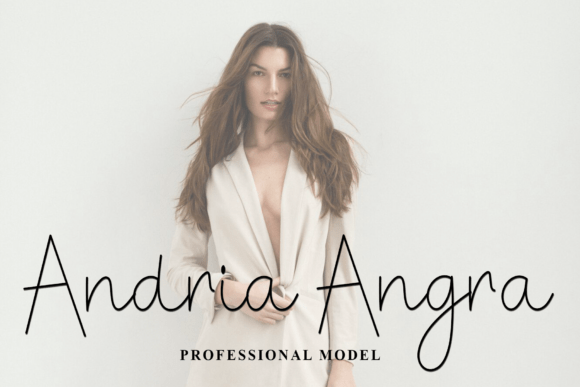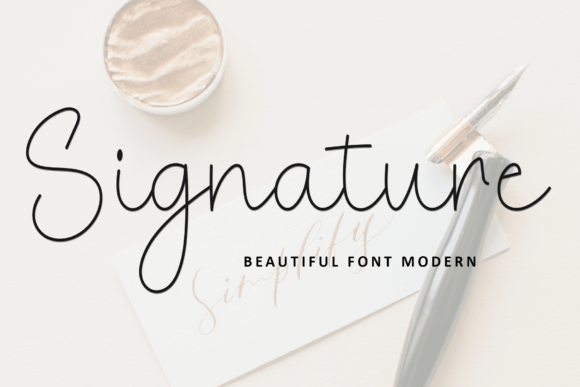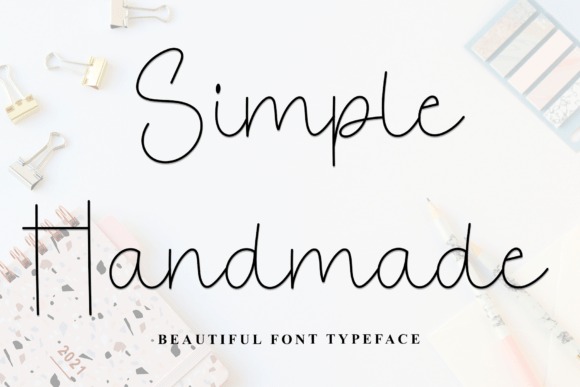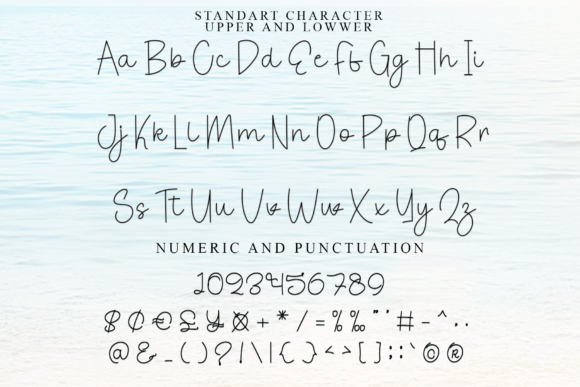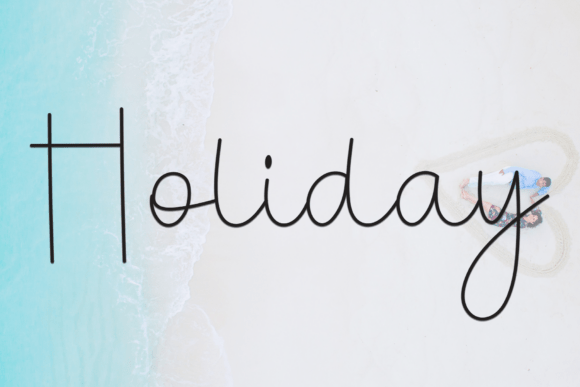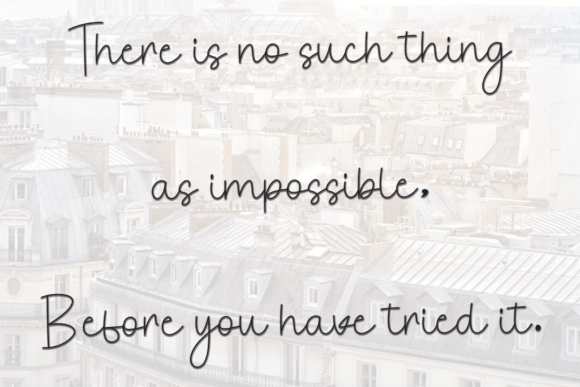
Biscuit Handmade Font: Elevate Your Designs with a Touch of Whimsy
In the world of typography, few fonts manage to capture the essence of handmade charm as effectively as the Biscuit Handmade Font. This beautiful, eye-catching font is designed with a soft, unique touch that immediately sets it apart from more conventional typefaces. Its distinctive strokes give it a special character, making it not only meaningful but also incredibly versatile for future use in a wide array of design projects.
The Unique Appeal of Biscuit Handmade Font
The Biscuit Handmade Font boasts a range of features that make it an invaluable addition to any designer’s toolkit. One of its most notable attributes is its ability to bring a personal, handcrafted feel to any project. Whether you’re working on crafts, creative writing, or digital design, this font adds a layer of warmth and personality that can be difficult to achieve with more standard typefaces.
Versatility Across Projects
One of the key strengths of the Biscuit Handmade Font is its versatility. With a variety of characters at your disposal, you can use this font for a multitude of design projects. From crafting beautiful headings and titles to adding a personal touch to body text, Biscuit Handmade adapts seamlessly to different contexts. This adaptability makes it an excellent choice for:
- Digital and print design projects
- Crafts, including handmade cards and invitations
- Creative works such as poetry, short stories, and novels
- Branding and packaging that requires a personal touch
Enhancing Your Designs
The Biscuit Handmade Font is more than just a typeface – it’s a design element that can elevate your projects and make them more appealing to a broad audience. Its natural, handmade style resonates with the growing demand for personalized and unique design solutions. By incorporating Biscuit Handmade into your work, you can:
- Create visually striking headings and titles that capture attention
- Add an emotional connection to your designs through its warm and inviting feel
- Stand out in a crowded market with a distinctive aesthetic
The Future of Design with Biscuit Handmade Font
As we move forward in the digital age, the importance of distinctive and personal design elements continues to grow. The Biscuit Handmade Font is perfectly positioned to meet this demand, offering a timeless yet contemporary look that will enhance a wide range of products. Whether you’re a professional designer, a crafter, or simply someone who appreciates the beauty of handwritten typography, Biscuit Handmade provides a valuable resource for creating memorable and impactful designs.
In conclusion, the Biscuit Handmade Font is a beautiful and versatile typeface that brings a unique touch to any design project. Its soft, handmade strokes and wide range of characters make it perfect for a variety of creative applications. Compatible with both Windows and open-source platforms, it’s an accessible and practical choice for designers and crafters alike. By incorporating Biscuit Handmade into your design toolkit, you can create more engaging, personal, and visually appealing projects that stand out across different artistic and creative fields.